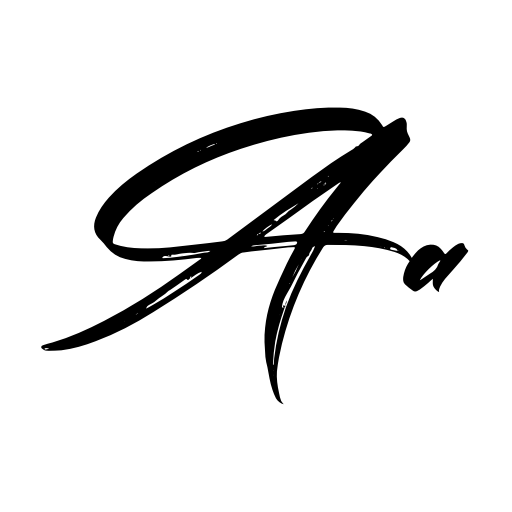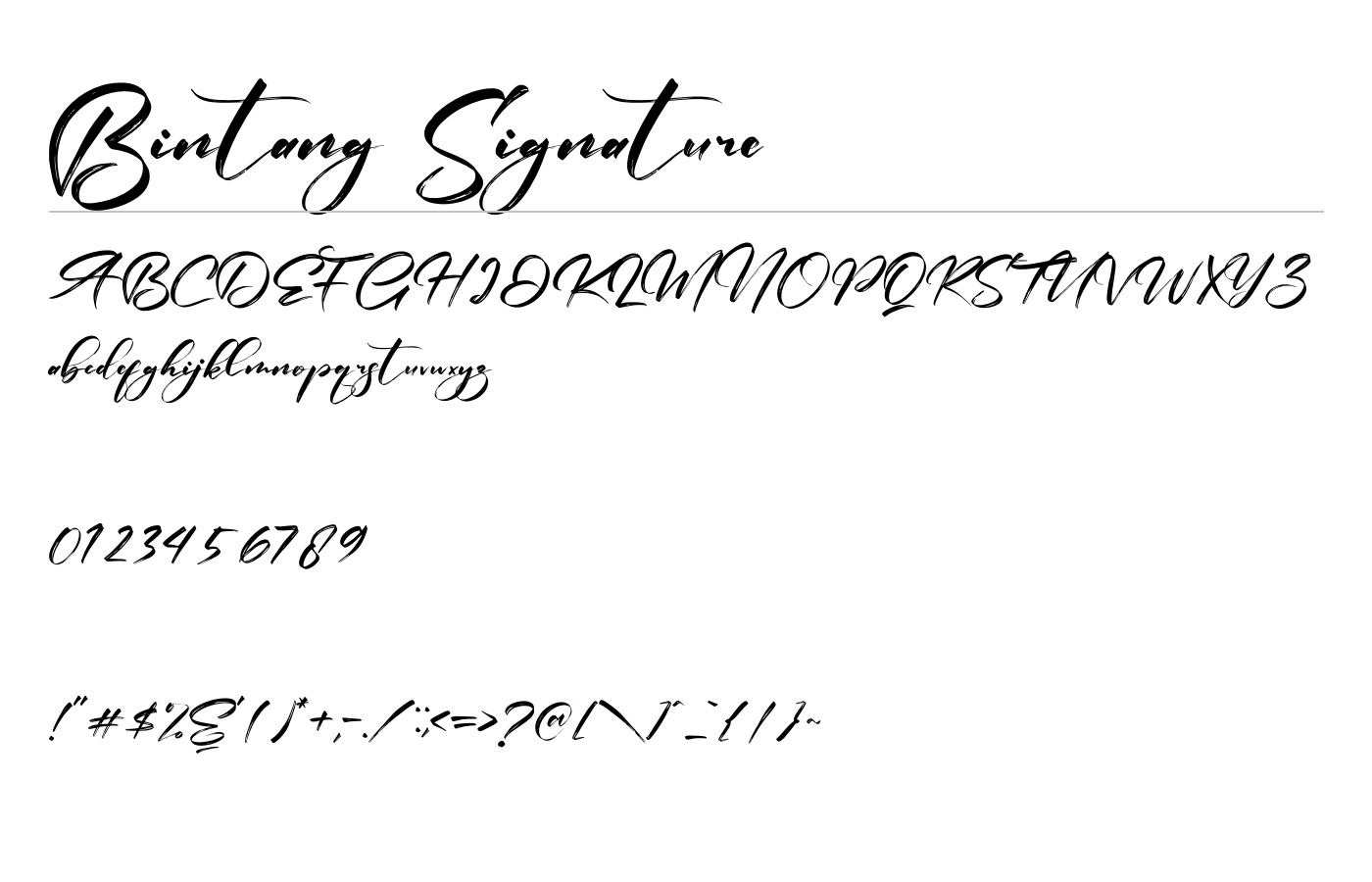
Bintang Signature is a stylish script font that mimics elegant handwriting with fluid, sweeping strokes and refined calligraphic flair. Its medium weight and natural letter connections give it a personal, graceful feel perfect for luxury branding, invitations, and creative logos that want to convey sophistication and warmth. This font shines in headline use or decorative text where its unique character and artistic flow can truly stand out.
Bintang Signature Font
About Bintang Signature Font